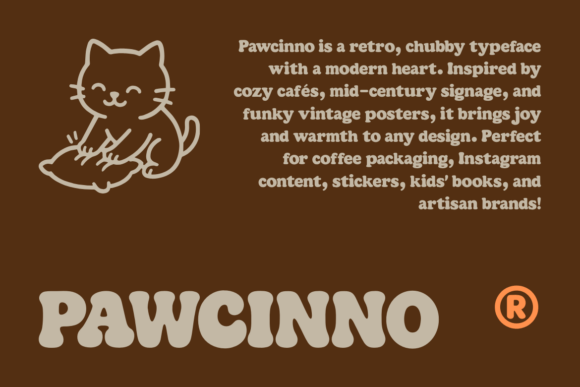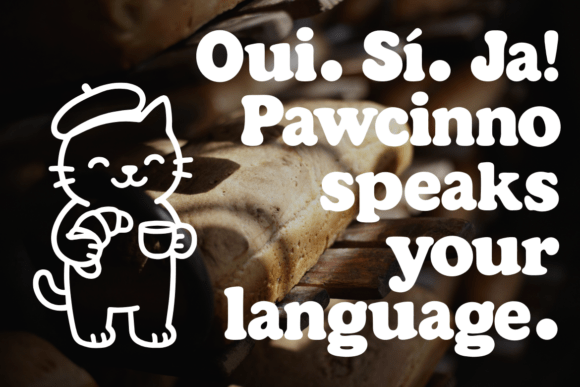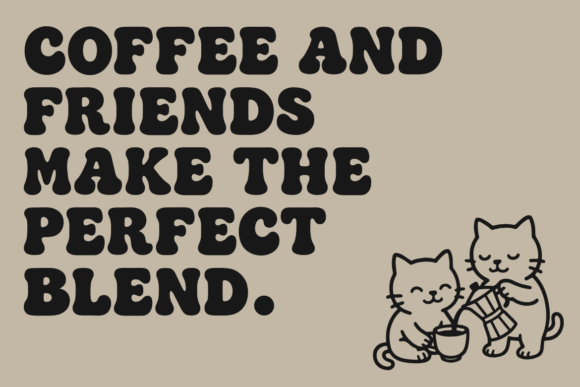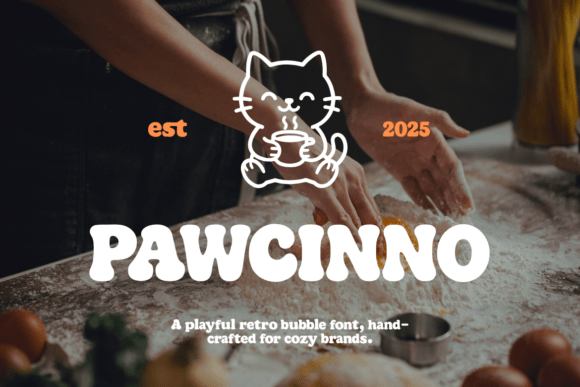
Introduction to Pawcinno Font
Pawcinno – Playful Retro Bubble Font Pawcinno is a bold, bubbly display font inspired by the groovy aesthetics of 1970s poster typography and retro fruit packaging.
With ultra-chubby letterforms, soft rounded terminals, and tight spacing, this typeface radiates a playful, nostalgic vibe that’s perfect for creative projects with a bold personality Each character is carefully crafted with minimal internal space and smooth contours, giving the font a friendly and approachable look.
Pawcinno Font offers exceptional quality and versatility, making it a valuable addition to your design toolkit. Whether you’re creating for personal projects or commercial use, Pawcinno Font delivers professional results.